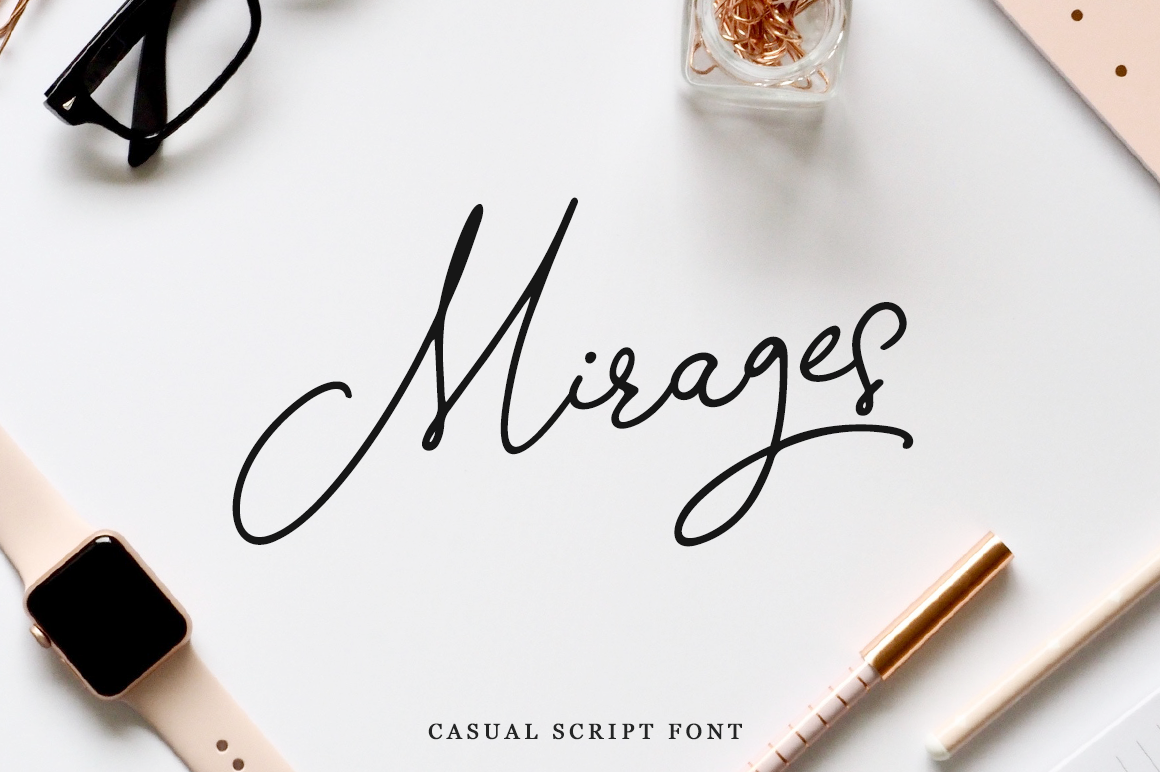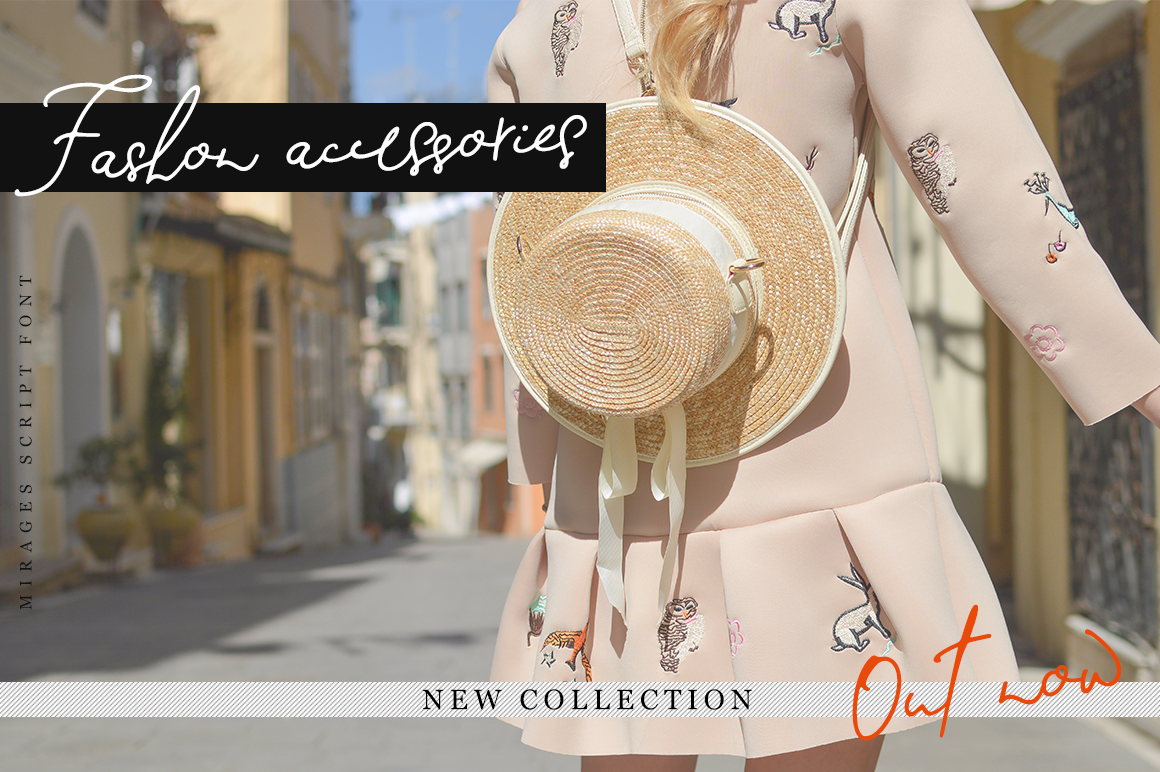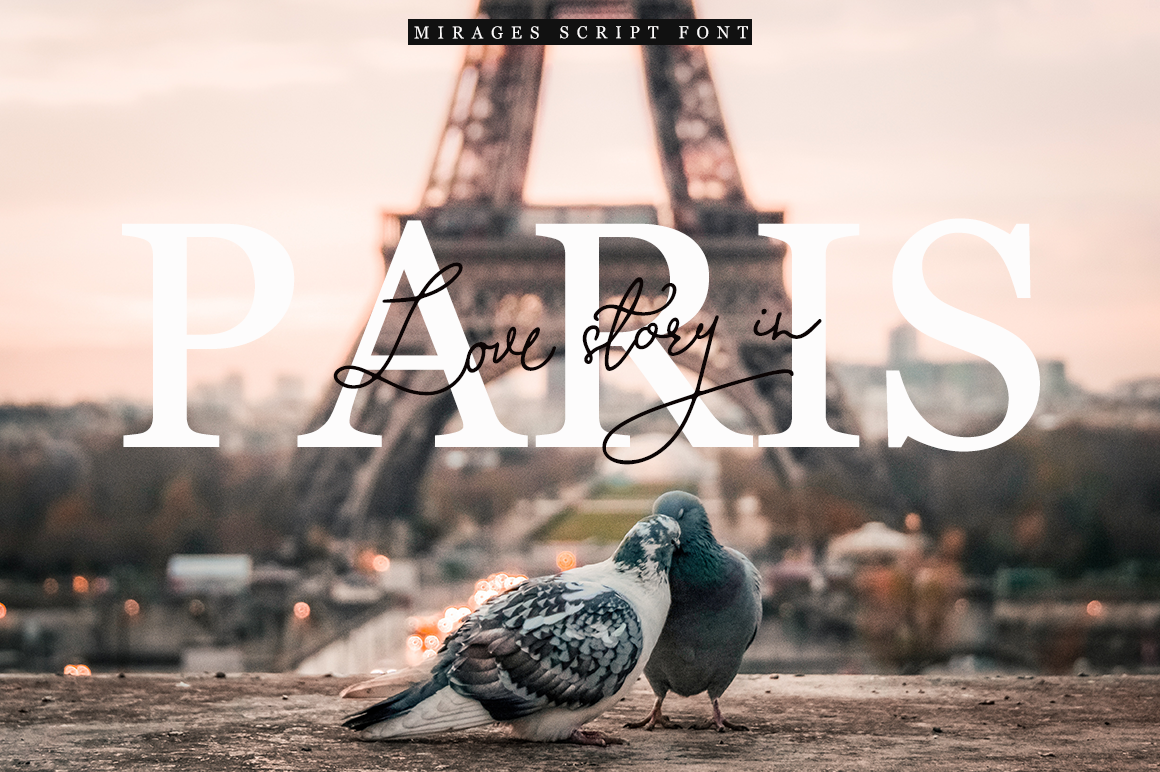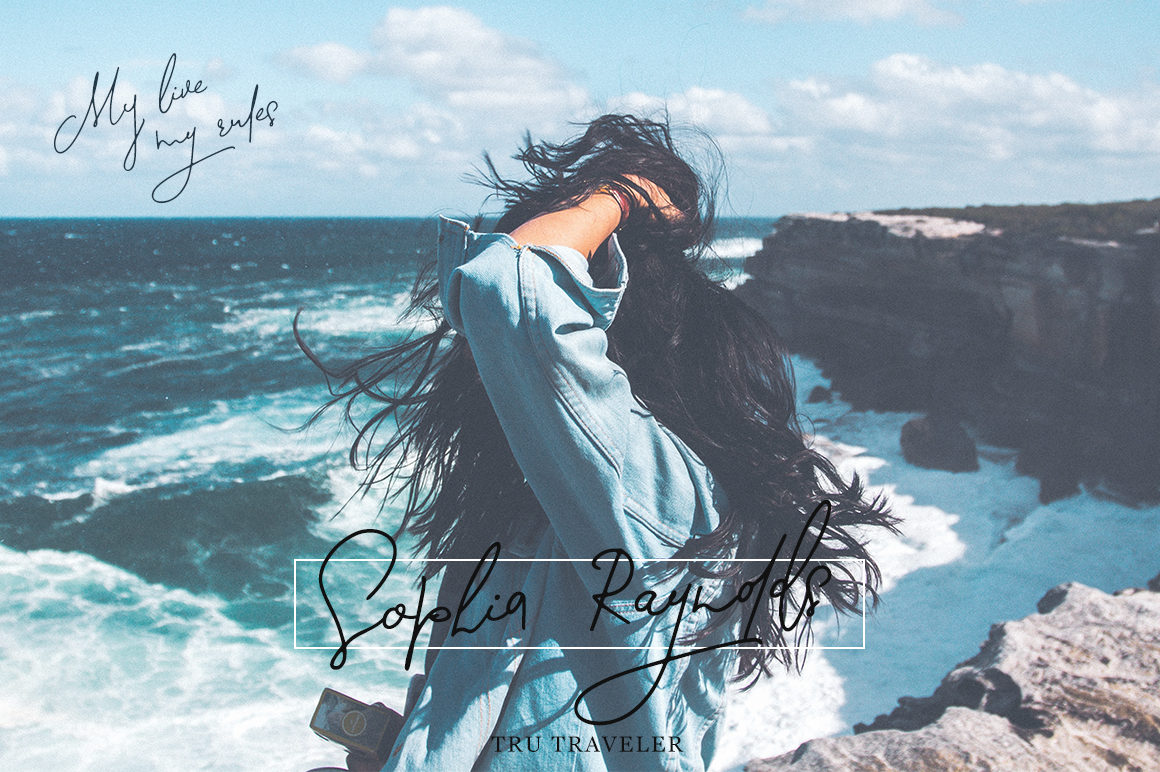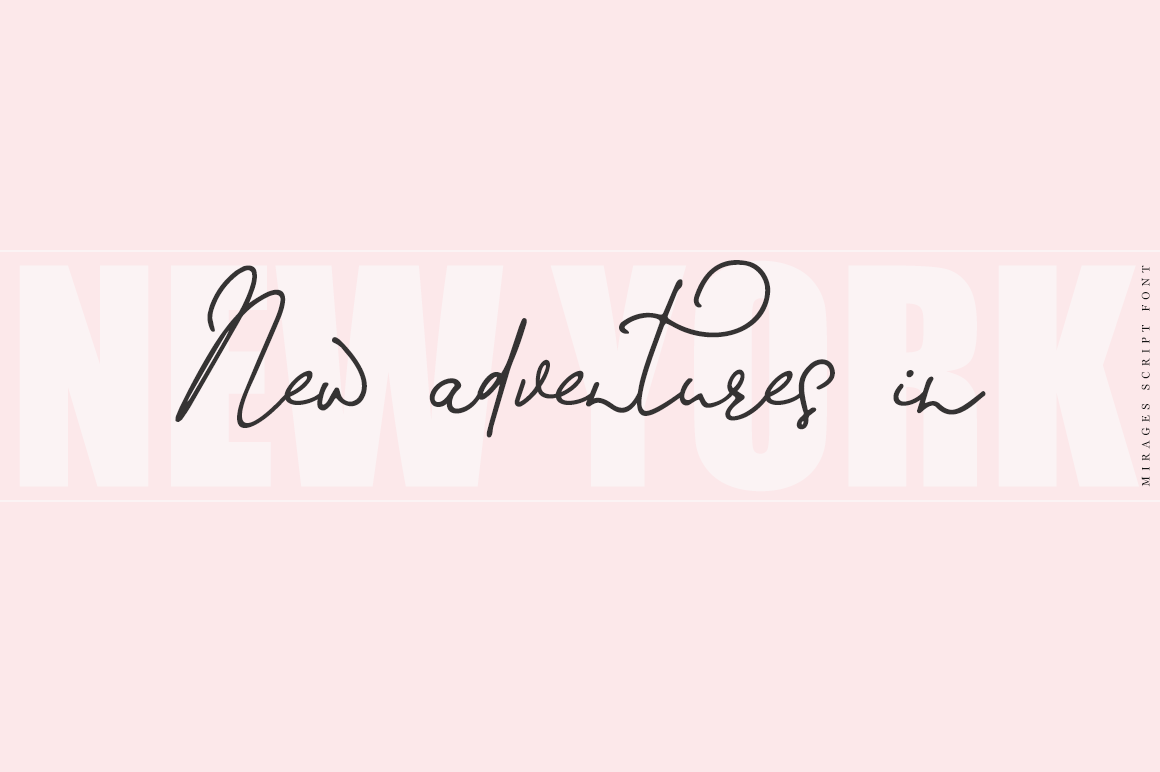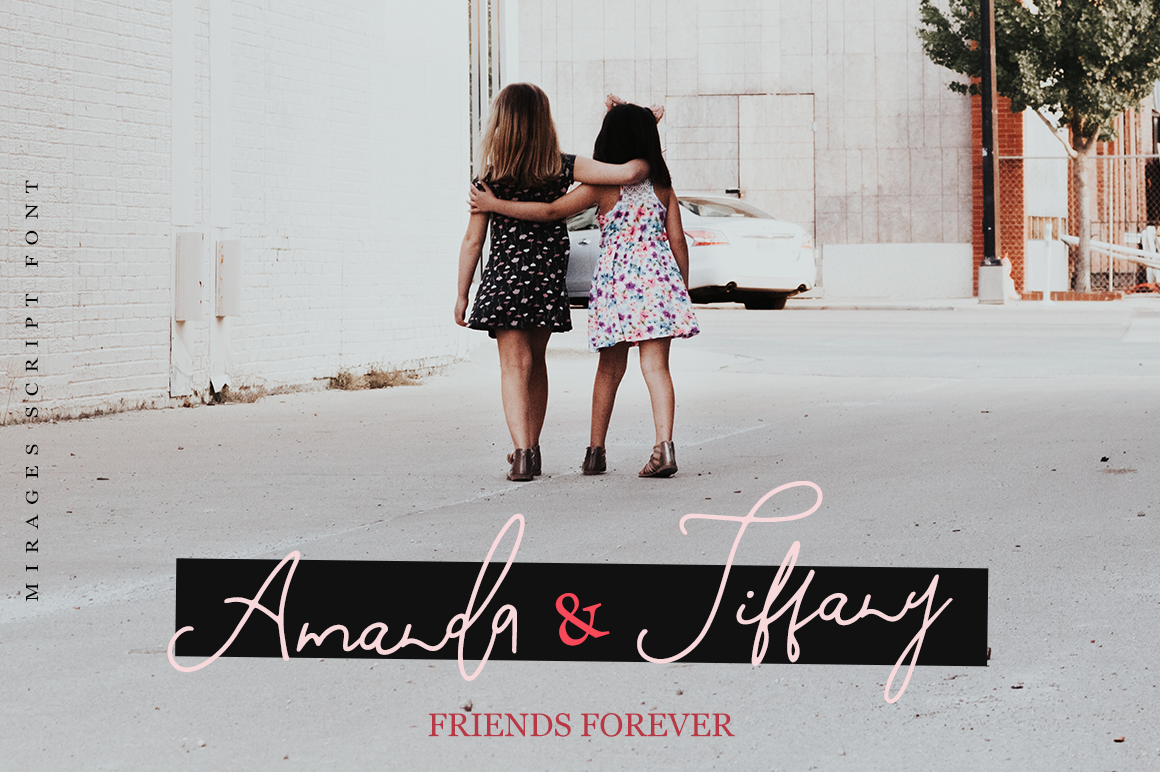
Mirages Font
About Mirages Font
Mirages is a cool and beautiful calligraphy script font, ideal for a ton of branded and feminine display purposes. This font was crafted for wedding collateral and blog branding, but can be used for a ton of different uses in both print and digital projects.